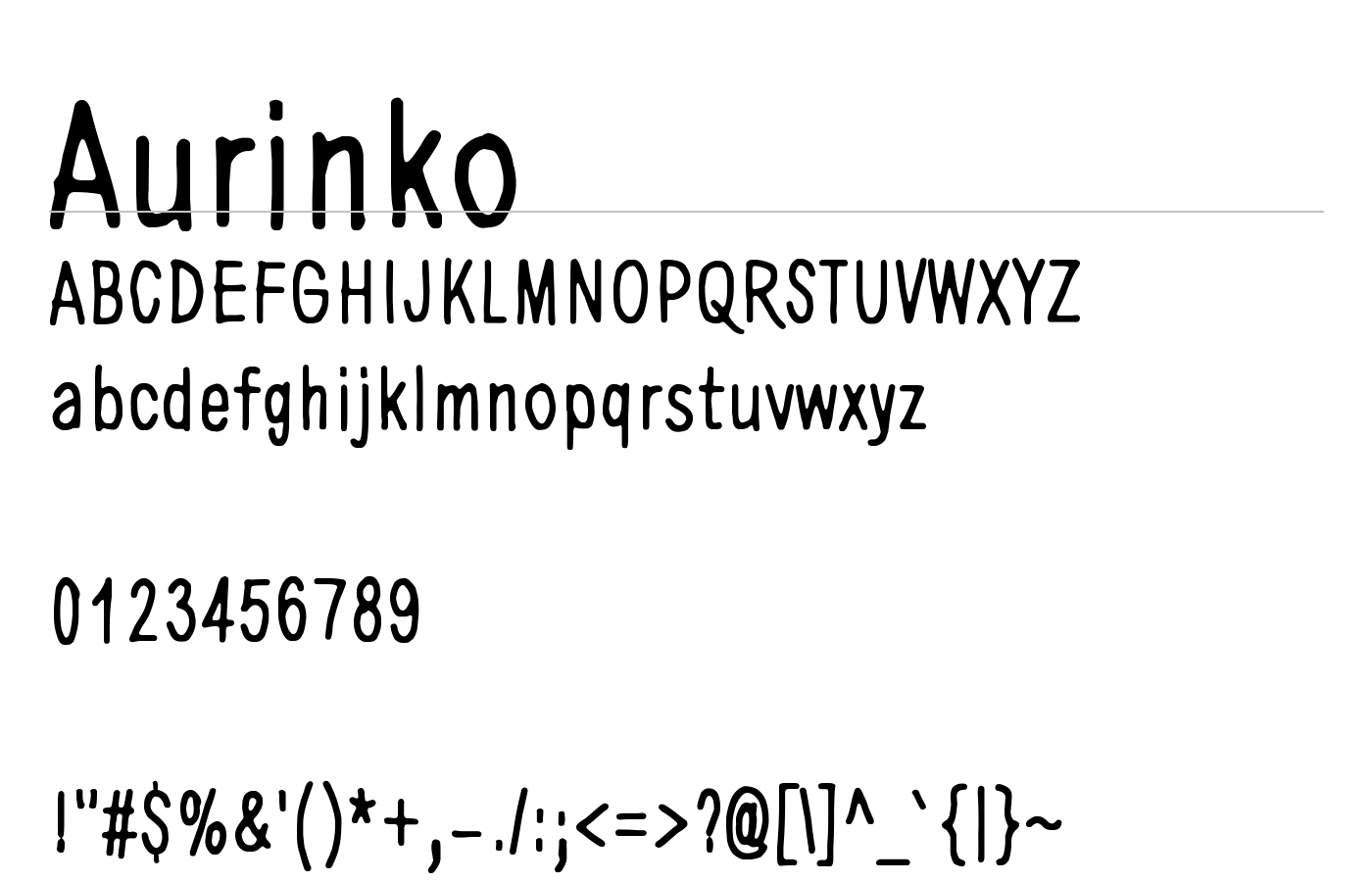
Aurinko is a quirky sans serif font with a hand-drawn feel, characterized by its tall, narrow letterforms and slightly irregular strokes. Its casual and friendly style makes it perfect for playful branding, informal editorial designs, and creative projects seeking a unique, approachable vibe. This font works especially well for headlines and logos where a touch of personality and warmth is desired.
Aurinko Font
About Aurinko Font
| Font family | Aurinko Font |